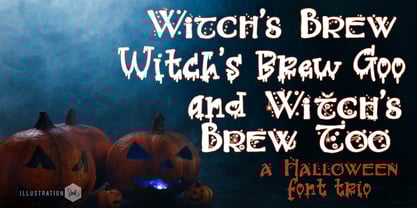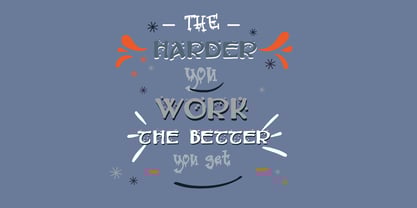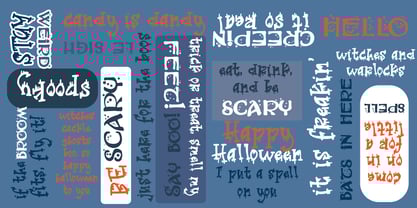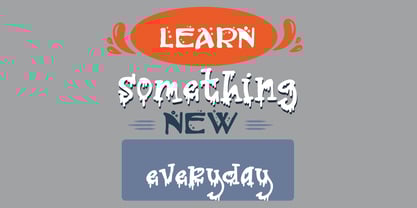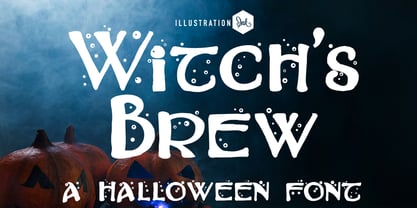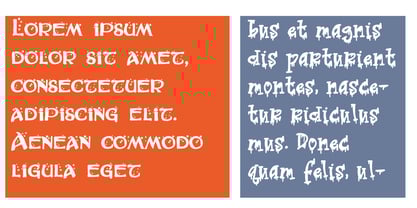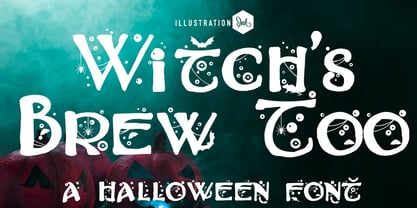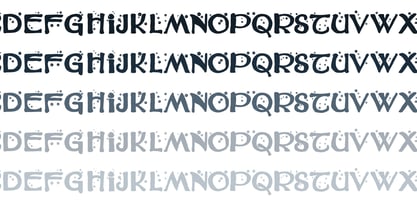
ZP Witchs Brew
by Illustration Ink
The ZP Witchs Brew Font Family was designed by Illustration Ink and published by Illustration Ink. ZP Witchs Brew contains 9 styles and family package options. More about this family
This fun font trio is perfect for Halloween with bubbles and webs and all the things that make a perfect brew. There is a gooey sister without bubbles as well. Hand-crafted fonts can be either formal or informal, and they can be used for a variety of purposes. Some of the characteristics of handwritten fonts include: The letters are not perfectly uniform in size or shape. There may be slight variations in the spacing between letters and words. The font may have a "wiggly" or "squiggly" appearance. The font may be difficult to read at small sizes. Handwritten fonts can be a great way to add a casual touch to your designs. They can also be used to create a sense of nostalgia or whimsy. However, it is important to choose a handwritten font that is appropriate for the project you are working on. A formal handwritten font may not be appropriate for a casual invitation, while an informal handwritten font may not be appropriate for a corporate document.
Designers: Illustration Ink
Foundry: Illustration Ink